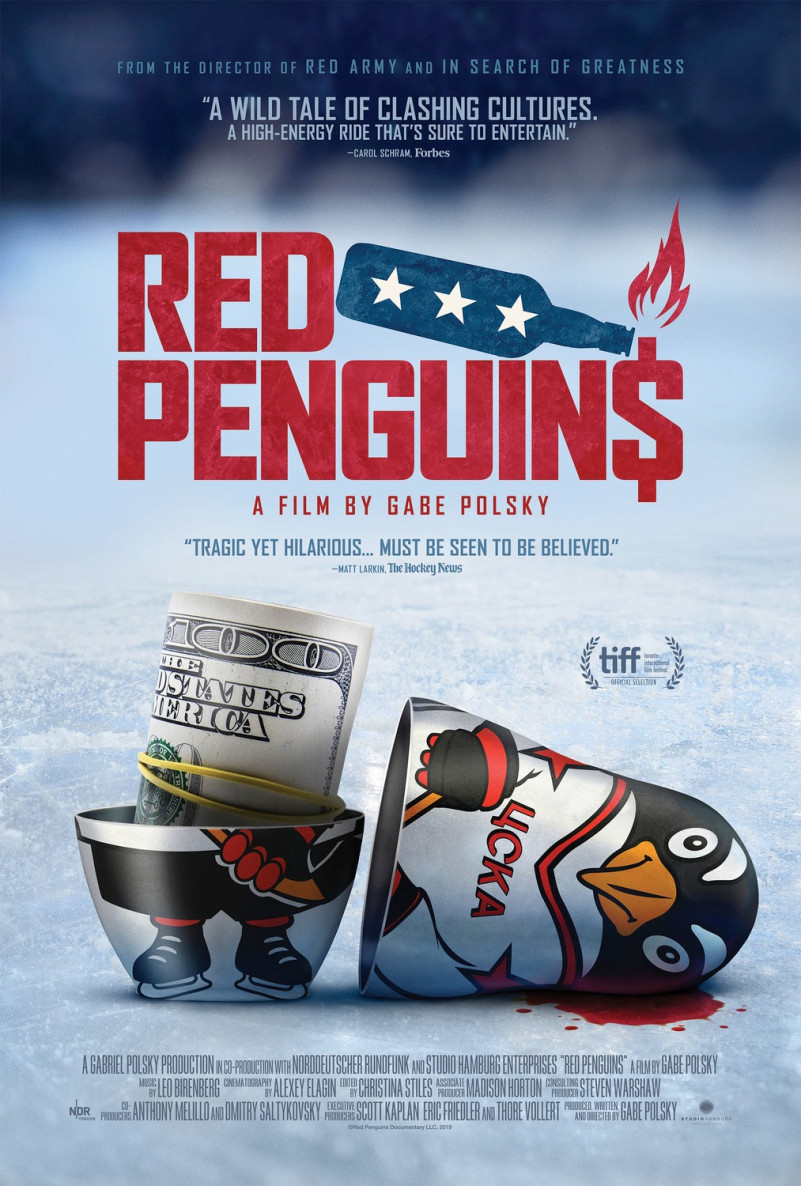
Red Penguins (2020) Font
Detailing an incredible true story involving gangsters, strippers, and live bears serving beer on a hockey rink, Red Penguins tells the wild forgotten true story of capitalism and opportunism run amok in Moscow. Shortly after the collapse of the Soviet Union, the Pittsburgh Penguins and the famed Red Army hockey team formed a joint venture that redefined what was possible in the new Russia. Eccentric marketing whiz, Steve Warshaw, is sent to Moscow and tasked to transform the team into the greatest show in Russia, attracting some of the biggest names in Hollywood and advertising along the way. He takes the viewer on a bizarre journey highlighting a pivotal moment in U.S.-Russian relations during a lawless era when oligarchs made their fortunes and multiple murders went unsolved.
What Font Was Used in Poster?
The text “Red Penguins” on the poster we identify is created by AgencyFB Black Font.  ATF Agency Gothic was designed by Morris Fuller Benton in 1932 as a lone titling typeface.